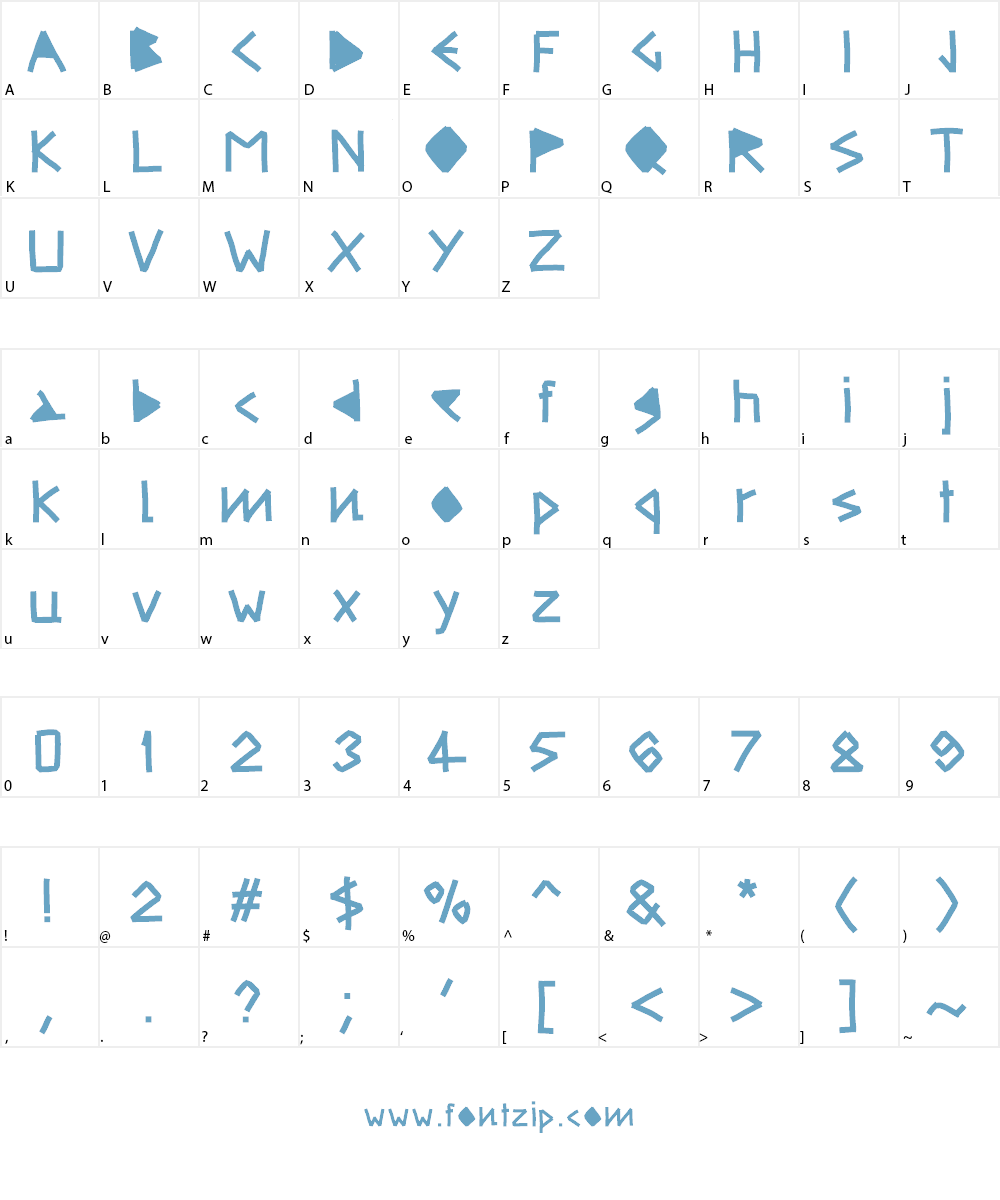
Inspired by Depeche Mode's Ultra album, ULTRA DM font is a bold graffiti sketch type that can be used to give a modern aesthetic writing to your designs.